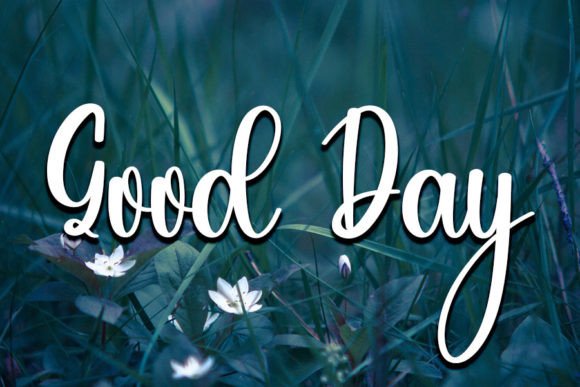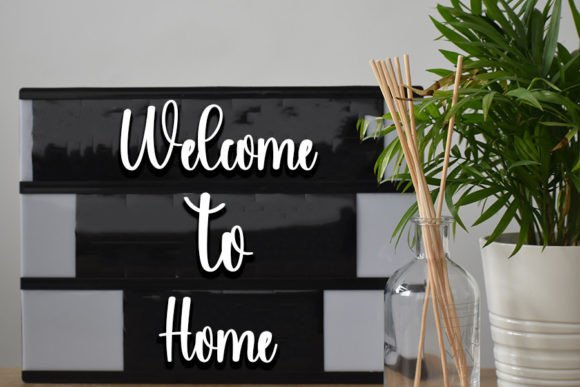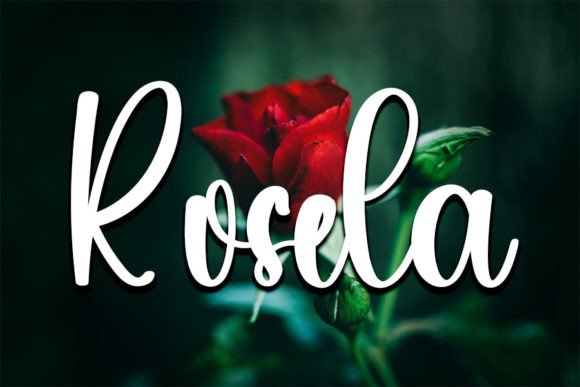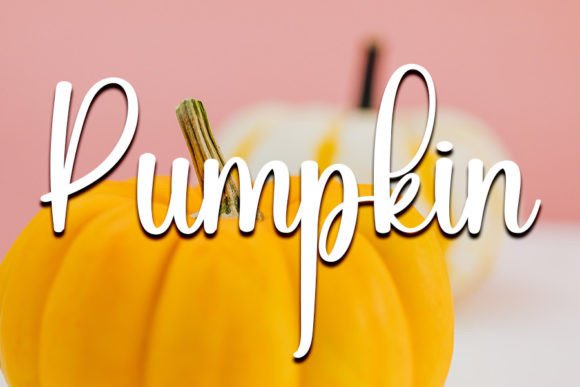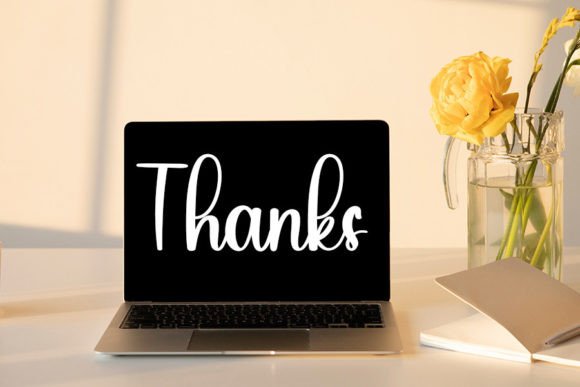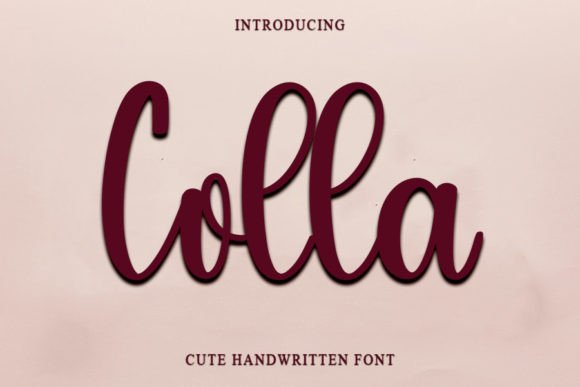
Discover the Elegance of Colla Font: Elevate Your Designs with Timeless Style
Are you on the hunt for a font that exudes elegance, sophistication, and a touch of handmade charm? Look no further than Colla Font, a stunning handwritten typeface that is sure to capture your heart. With its unique blend of classic and modern elements, Colla is the perfect choice for designers and crafters seeking to add a distinctive flair to their projects.
The Characteristics of Colla Font
Colla Font is described by its elegant touch, which sets it apart from other handwritten fonts. Its incredibly distinct and timeless style makes it an excellent choice for a wide range of applications, from branding and advertising to packaging and editorial design. The font’s neat and beautiful appearance is characterized by:
- Flowing lines and curves that create a sense of movement and fluidity
- Intricate details and subtle imperfections that add a touch of handmade charm
- A balanced and harmonious layout that ensures excellent readability
Why Choose Colla Font?
So, what makes Colla Font so special? Here are just a few reasons why designers and crafters are falling in love with this beautiful typeface:
- Unique Style: Colla Font boasts a truly unique style that will set your designs apart from the crowd. Its elegant touch and timeless appeal make it an excellent choice for projects that require a touch of sophistication.
- Versatility: Whether you’re working on a branding project, creating a poster, or designing a social media graphic, Colla Font is the perfect choice. Its versatility ensures that it will work beautifully in a wide range of applications.
- Readability: Despite its elegant and intricate design, Colla Font remains highly readable, even at smaller sizes. This makes it an excellent choice for body text, as well as headlines and titles.
Perfect for Your Favorite Projects
Colla Font is the perfect choice for a wide range of projects, including:
- Branding and Identity: Create a lasting impression with Colla Font, perfect for logos, business cards, and letterheads.
- Advertising and Marketing: Use Colla Font to create eye-catching posters, flyers, and social media graphics that will grab attention.
- Packaging and Product Design: Add a touch of elegance to your product packaging with Colla Font, perfect for labels, tags, and packaging materials.
- Editorial and Publishing: Use Colla Font to create beautiful and engaging editorial content, including magazines, newspapers, and books.
Tips for Using Colla Font
To get the most out of Colla Font, here are a few tips to keep in mind:
- Pair with Other Fonts: Colla Font pairs beautifully with other fonts, including sans-serif and serif typefaces. Experiment with different combinations to find the perfect look for your project.
- Experiment with Colors: Colla Font looks stunning in a range of colors, from bold and bright to soft and pastel. Experiment with different colors to find the perfect look for your project.
- Pay Attention to Kerning: As with any font, pay attention to kerning and tracking to ensure that your text looks beautiful and balanced.
In conclusion, Colla Font is a beautiful and elegant handwritten typeface that is sure to capture your heart. With its unique style, versatility, and readability, it’s the perfect choice for designers and crafters seeking to add a touch of sophistication to their projects. Whether you’re working on a branding project, creating a poster, or designing a social media graphic, Colla Font is the perfect choice. So why wait? Fall in love with Colla Font today and elevate your designs to new heights!